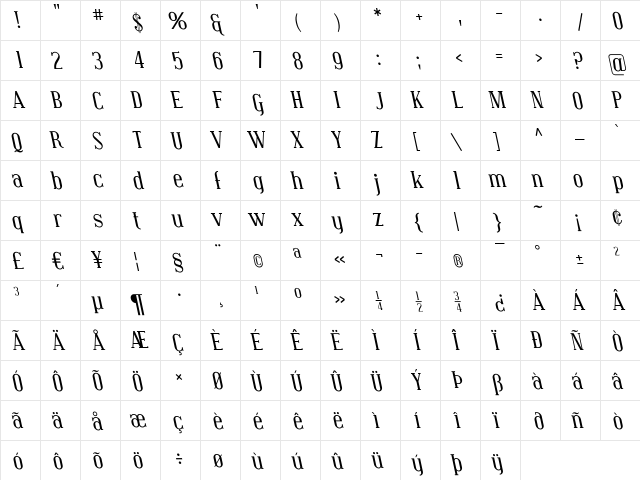
Covington Rev Italic
| Designer | Derek Vogelpohl |
Design Context for Covington Rev Typeface
Covington Rev offers clean, dependable letterforms without strong stylistic allegiance, making it a practical choice for designers who need flexibility. Its italic angle brings a sense of urgency and motion to the letterforms.
Pro Tip: Use Covington Rev for emphasis, pull quotes, and subheadings where its slanted energy can add rhythm to the layout.